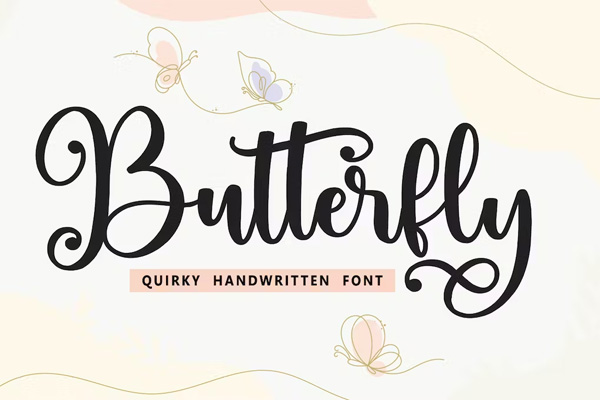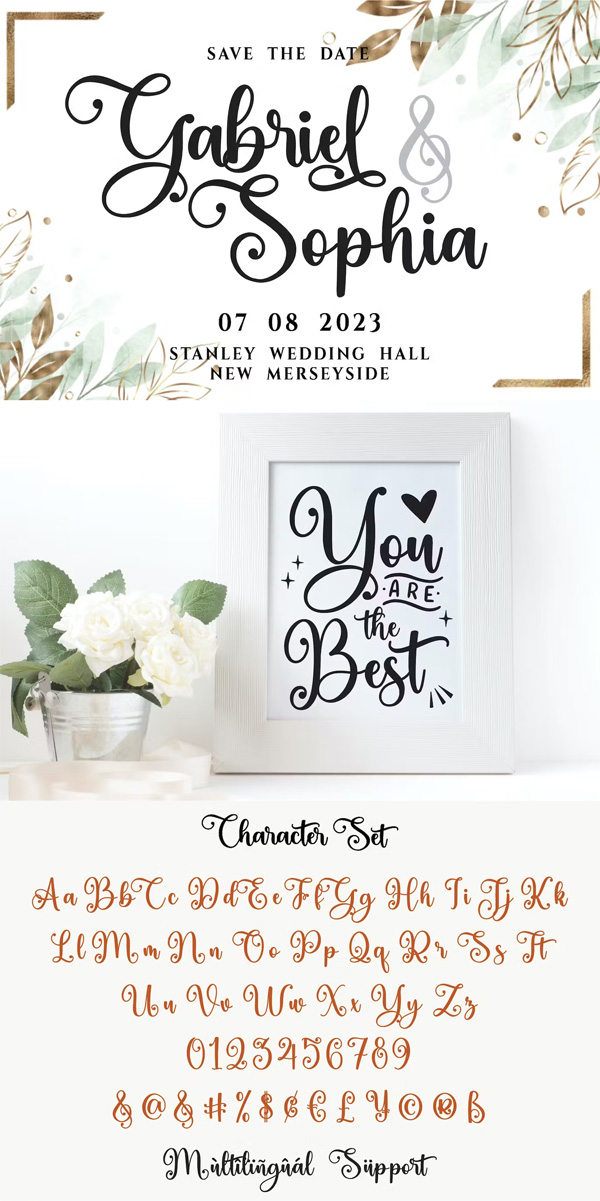
Here in this post, you can Free Download Butterfly Font 5VXH4GB compress files through the below link. Introducing Butterfly – a script handwritten font. It is a mesmerizing font that will add a touch of elegance and charm to your designs. With its delicate curves and intricate details, this handwritten font captures the beauty of nature and the grace of a butterfly in flight. You Can Also Download The Big Cute Fonts Bundle.
Crafted with precision and care, Butterfly is perfect for a wide range of creative projects. Whether you’re designing wedding invitations, branding materials, or social media graphics, this font will effortlessly elevate your work to new heights. With its graceful strokes and unique character, Butterfly brings a sense of enchantment to any project. Its versatility allows you to create stunning typography, while the handwritten feel adds a personal touch that resonates with viewers. You Can Also Download 50 Script Fonts Bundle.